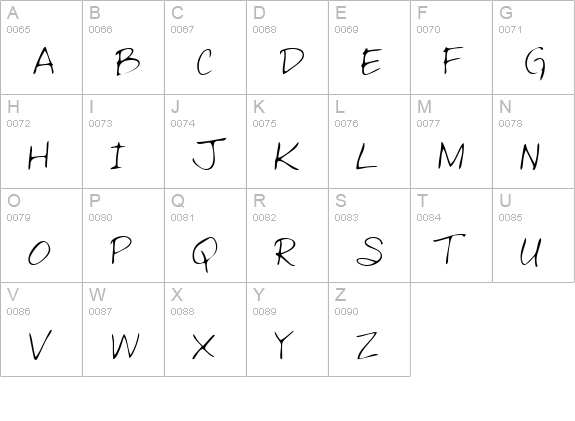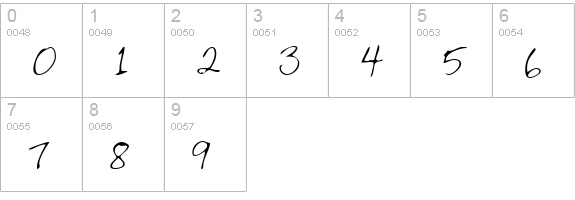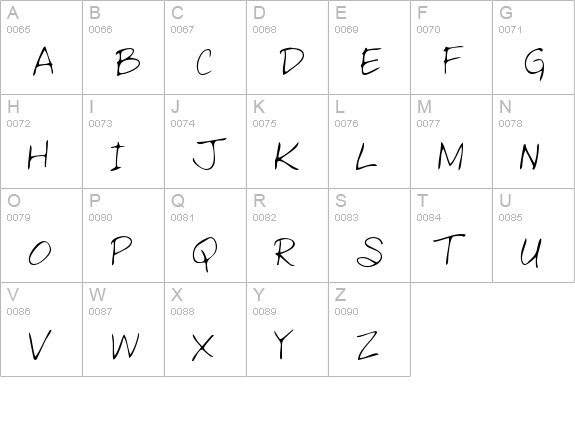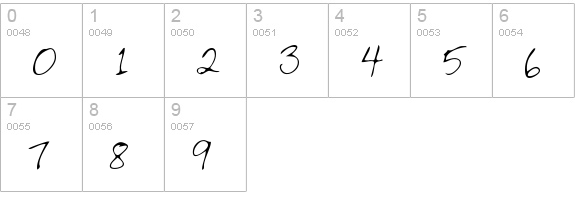
SherylsHand Regular Font Details
SherylsHand Regular is the standard, neutral variant in the SherylsHand typeface family \xE2\x80\x94 well suited to general body text, paragraphs, and standard typographic work.
SherylsHand Regular font is a stunningly beautiful typeface that exudes elegance and artistry. With its delicate and flowing strokes, this font captures the essence of handwritten calligraphy, adding a touch of sophistication to any project. This font is perfect for a wide range of design purposes, from wedding invitations and greeting cards to logos and branding. Its timeless appeal and versatility make it suitable for both formal and informal occasions, effortlessly elevating the aesthetic of any design. One of the best things about SherylsHand Regular font is that it is freely available to download at FontsMarket.com. You can unleash your creativity without worrying about any additional costs. Whether you are a professional designer or a hobbyist, this font offers a great opportunity to enhance your projects with a touch of elegance and grace. The smooth and natural curves of SherylsHand Regular font lend a sense of authenticity and warmth to your designs, making them visually appealing and engaging. Each letter is carefully crafted, resulting in a flawless and polished look that will captivate your audience. With its generous x-height and well-balanced letterforms, SherylsHand Regular font ensures excellent legibility even at smaller sizes, making it suitable for both print and digital media. Its versatility extends to various design software, ensuring seamless integration into your creative workflow. Whether you are designing a wedding invitation, a book cover, or a brand logo, SherylsHand Regular font is a fantastic choice that will elevate your design to new heights. Download it for free at FontsMarket.com and let your creativity soar.